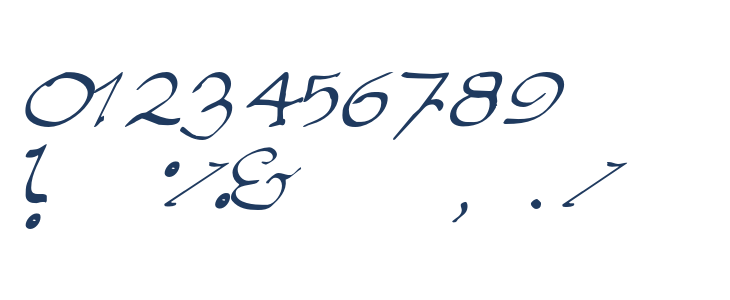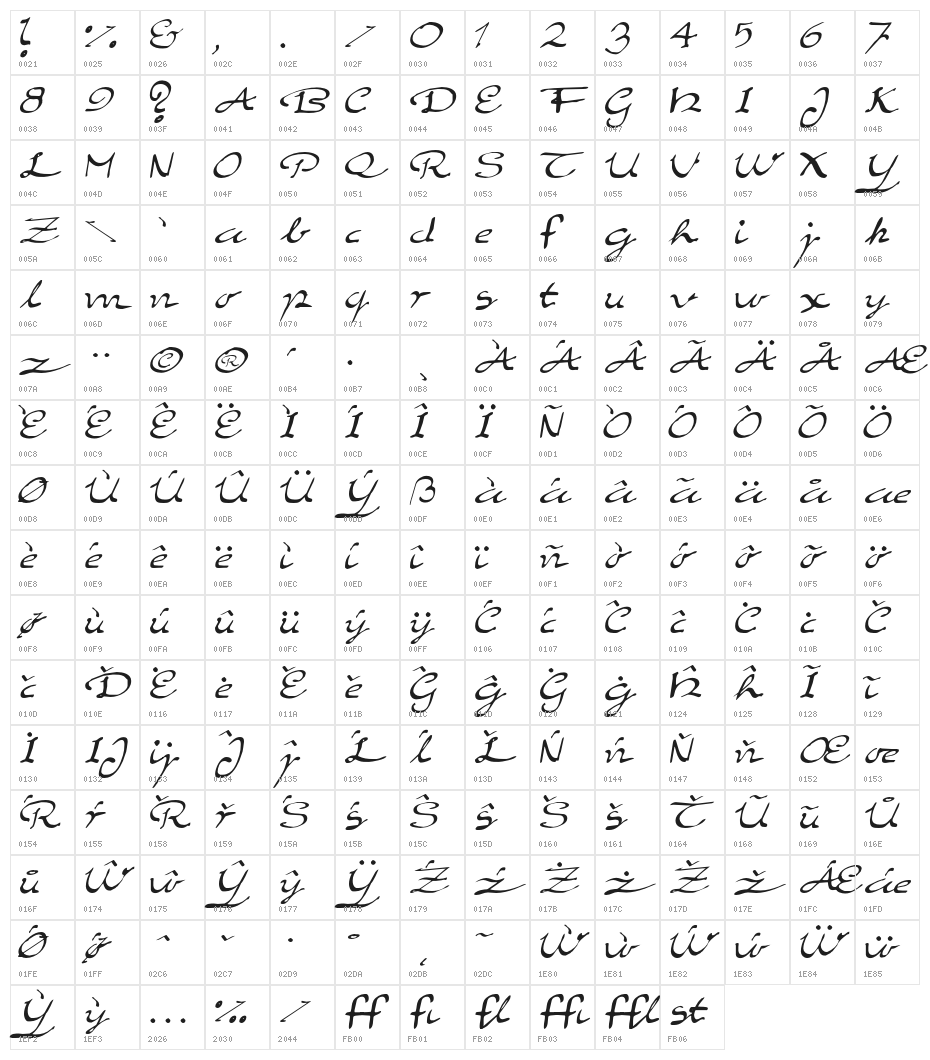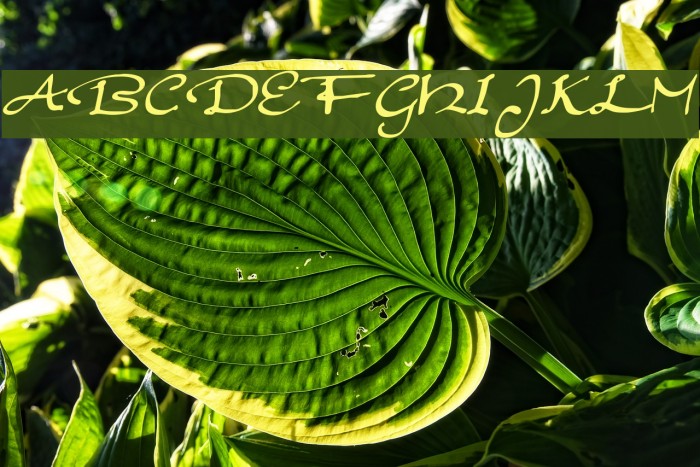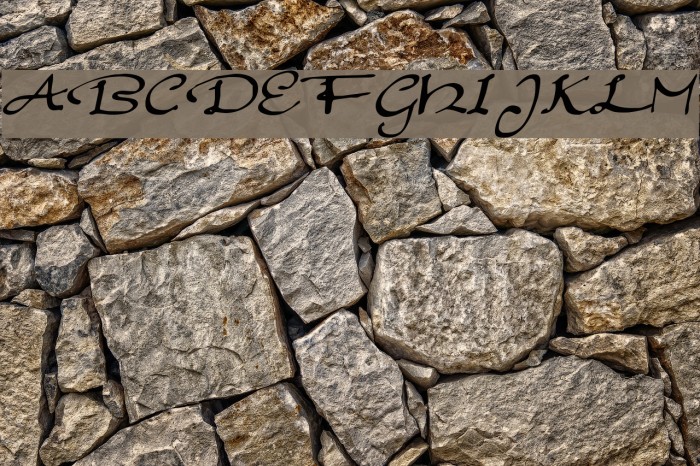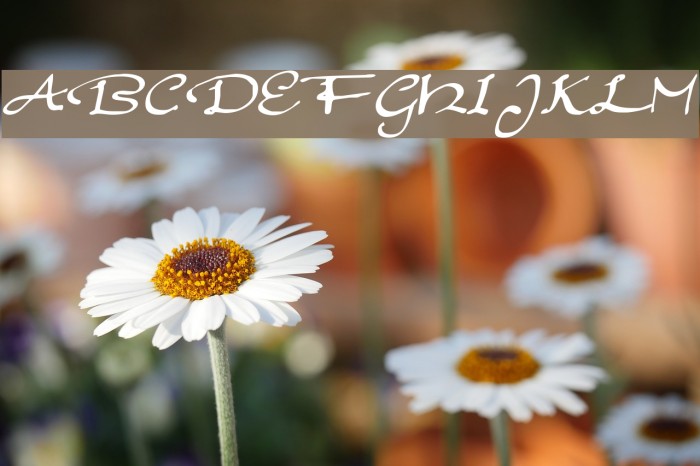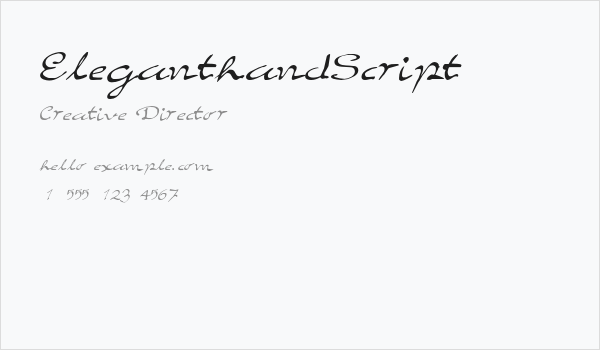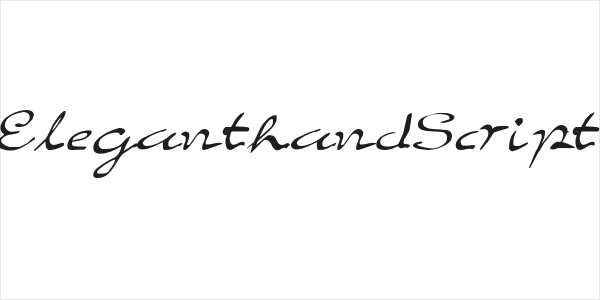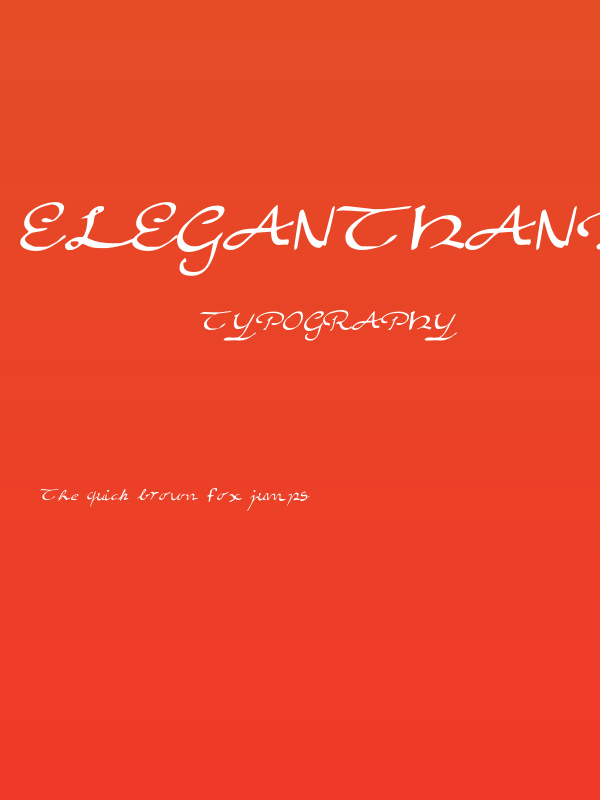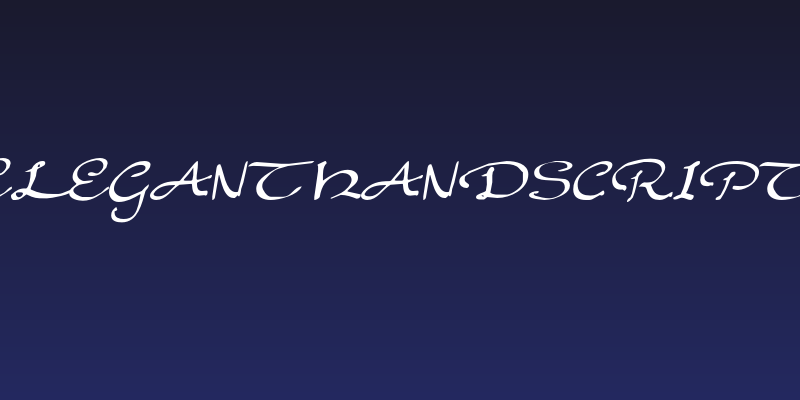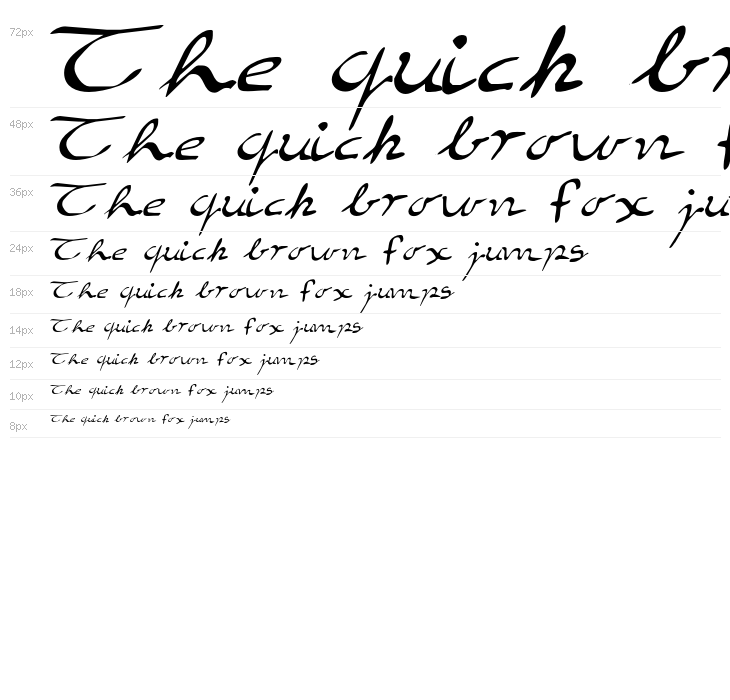
EleganthandScript Font
EleganthandScript Description
This font exudes elegance and sophistication with its flowing, cursive style. The characters are intricately designed with smooth, sweeping curves and delicate strokes, giving it a refined and graceful appearance. The uppercase letters are bold and prominent, while the lowercase letters maintain a consistent fluidity, enhancing readability. The numerals are stylishly crafted, complementing the overall aesthetic. Special characters are thoughtfully integrated, maintaining the font's cohesive look. This script font is perfect for adding a touch of class and elegance to any design project.